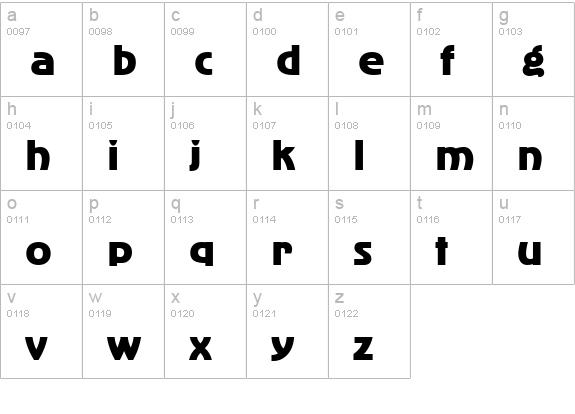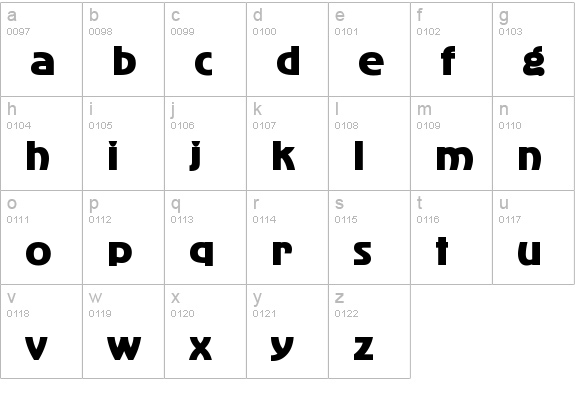
Bold is a strong, high-contrast variant in the Bold typeface family \xE2\x80\x94 well suited to headlines, attention-grabbing titles, and strong calls-to-action.
Bold font is a striking and attention-grabbing typeface that exudes confidence and impact. With its thick and strong strokes, Bold font makes a bold statement in any design project. Whether you are looking to create eye-catching headlines, powerful titles, or standout logos, Bold font is the perfect choice to make your text stand out. This versatile font is ideal for a wide range of applications, from posters and advertisements to branding and packaging. Its bold and dynamic appearance ensures that your message gets noticed and remembered. Best of all, Bold font is freely available to download at FontsMarket.com. So why wait? Add this powerful font to your collection today and take your designs to the next level with its bold and striking presence.